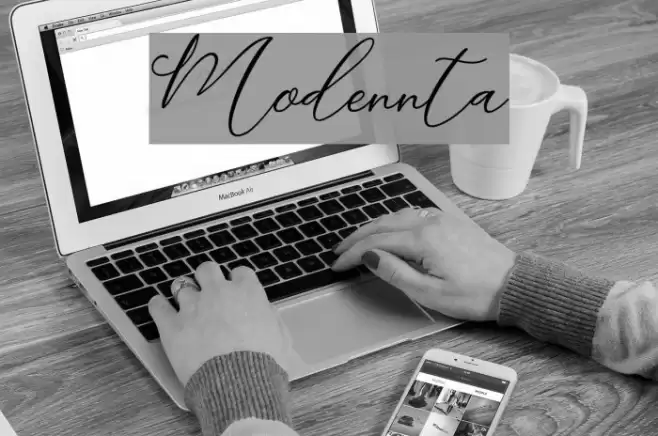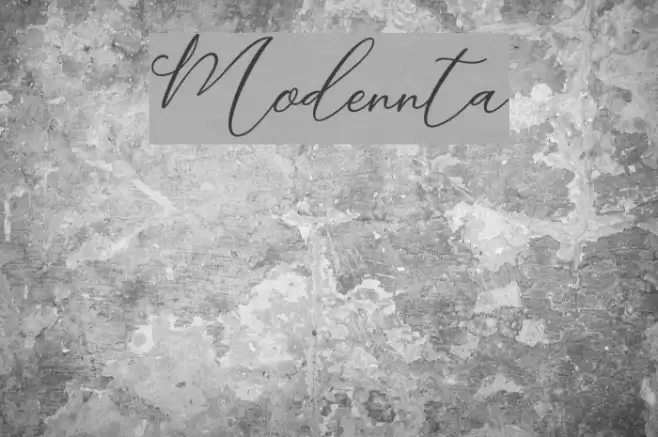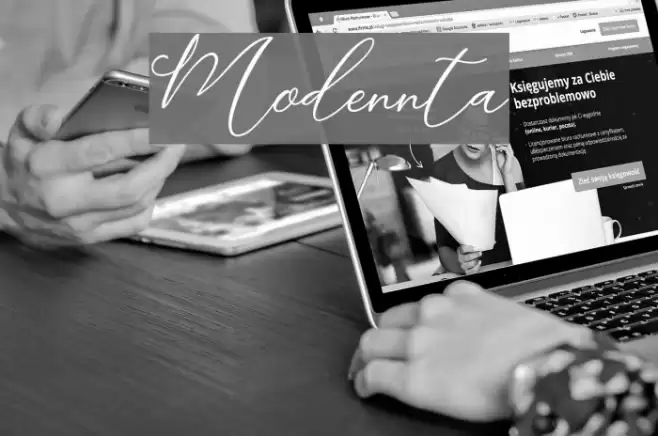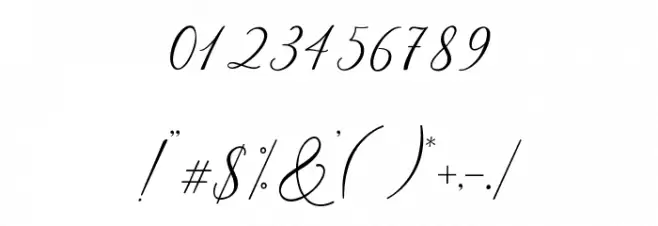
Modennta Font
Modennta Description
This elegant script font features flowing, interconnected letters with a sophisticated and graceful appearance. The uppercase letters are particularly ornate, with sweeping curves and flourishes that give a sense of movement and fluidity. The lowercase letters maintain a consistent style, with smooth transitions and a delicate touch. The numerals are designed to match the overall aesthetic, offering a cohesive look. Special characters are included, each crafted with the same attention to detail, making this font versatile for various design needs. Its refined style is perfect for formal invitations, branding, and any project requiring a touch of elegance.
An elegant script font with flowing, interconnected letters and ornate flourishes from Uncategorized fonts.
- Proposed Projects: Ideal for wedding invitations, luxury branding, elegant stationery, and high-end product packaging.
- Overall Style: Elegant
- Use Case: Logos, Invitations, Branding